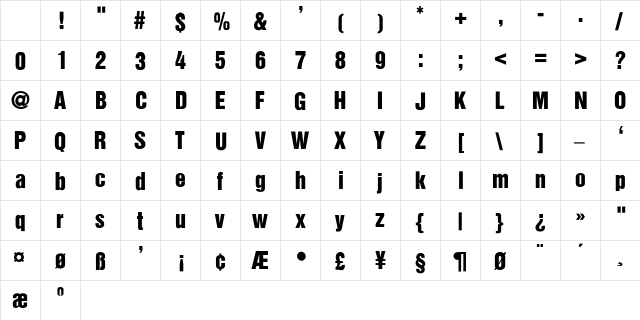
Complete HelveticaInserat-Roman-SemiBold Regular glyph index. Displaying only characters natively supported by HelveticaInserat-Roman-SemiBold Regular font.
HelveticaInserat-Roman-SemiBold is a composed and adaptable typeface that performs quietly and consistently across a wide range of design contexts. Its bold stroke weight gives it real presence on the page.